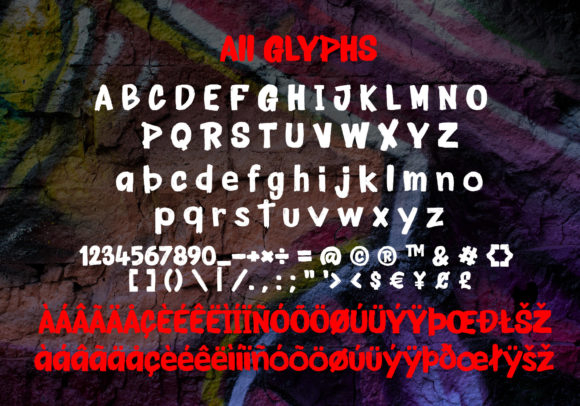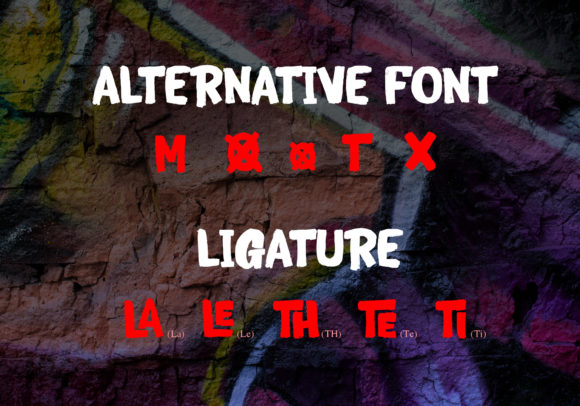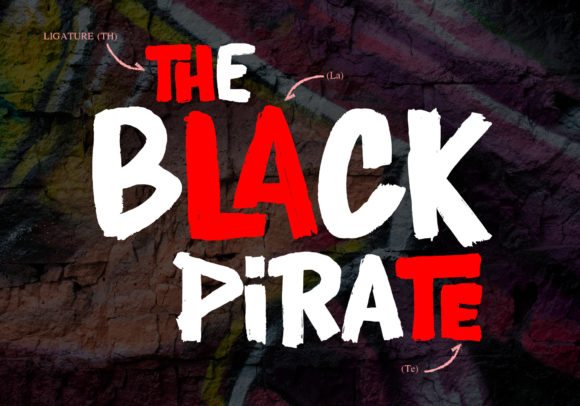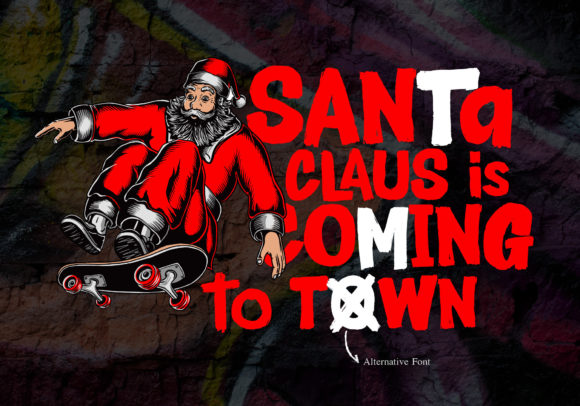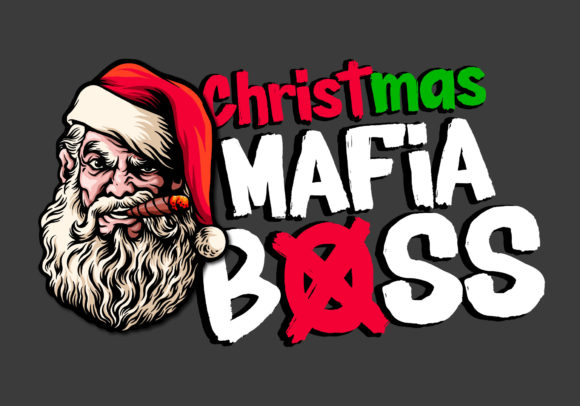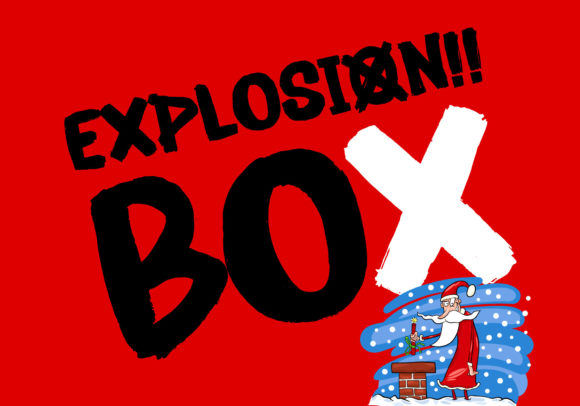
The Ultimate Christmas Font: A Street Art Twist on Holiday Cheer
It’s that time of the year again – the holiday season is in full swing, and designers are scrambling to create the perfect festive graphics. But this year, we want to shake things up with a font that’s anything but traditional. Imagine a Christmas font that’s raw, edgy, and straight out of the streets. Welcome to the world of Extreme Xmas Font, a bold and eye-catching display font that’s sure to add some much-needed grit to your holiday designs.
As a designer, you know that the right font can make all the difference in capturing the essence of a brand or message. And with the Extreme Xmas Font, you’ll be able to tap into the raw energy of street art to create truly unique and memorable designs. Whether it’s a t-shirt, logo, or advertisement, this font is the perfect way to add some holiday cheer with a rebellious twist.
Extreme Xmas Font Key Features
- Unique Characteristics: Unique, hand-drawn design with a distressed, vintage feel; perfect for adding a touch of whimsy and holiday cheer to your designs
Review of “Extreme Xmas Font”
Overall, I was excited to dive into “Extreme Xmas Font” and see if it lived up to its name. While it has some great qualities, there are also some areas that need improvement.
- ✨ The font’s bold, playful style is perfect for making a statement on festive designs. It’s sure to grab attention and add a fun touch to holiday projects.
- ✨ The font is highly customizable, allowing you to adjust the size, color, and even add custom effects to really make it pop.
Limitsations
- ⚠️ The font’s bold style can also make it difficult to read in certain contexts. It’s best used in headlines or short phrases where legibility isn’t a top priority.
- ⚠️ The font’s extreme style can also make it feel a bit over-the-top or tacky if used excessively. It’s best to use it sparingly to add a touch of fun without overwhelming the design.
While “Extreme Xmas Font” has some great qualities, it’s not a font I’d recommend for every project. If you’re looking to add a fun, playful touch to your holiday designs, it’s definitely worth considering. However, if you’re looking for a more straightforward, easy-to-read font, you may want to look elsewhere.
Extreme Xmas Font is perfect for creating festive holiday designs, such as:
- Christmas cards and invitations
- Gift tags and wrapping paper
- Decorative banners and posters
Remember to experiment with different font sizes, colors, and combinations to get the most out of Extreme Xmas Font.